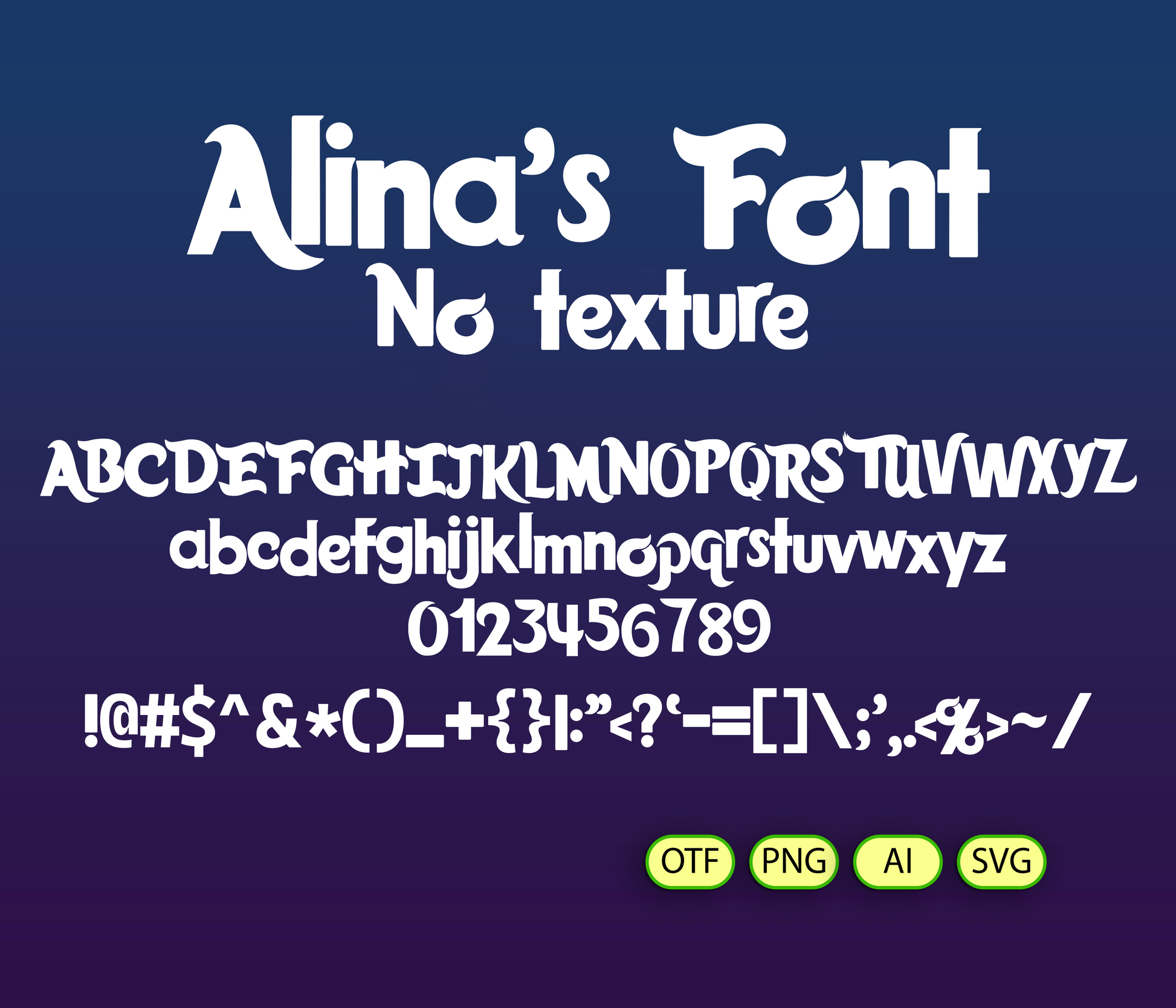
Magical Mischievous Sprites Font
Step into the vibrant and whimsical world of colorful sprites with our enchanting Magical Mischievous Sprites font! This playful typeface captures the essence of those lovable, hair-raising creatures that have captivated audiences with their musical journeys and heartwarming tales. Each character in this font radiates the joy, optimism, and wild creativity that defines these tiny, tune-loving beings.
What font is the Magical Mischievous Sprites font?
Imagine a typeface that embodies the exuberant spirit and fantastical nature of these musical sprites. Our font features bouncy, rounded letterforms with a hint of fuzziness, reminiscent of the sprites' iconic hairstyles. It includes a full set of alphabets, numbers, and special characters, making it perfect for a wide array of cheerful and uplifting design projects.
What You Can Do With Magical Mischievous Sprite Font
This versatile font is ideal for various creative applications:
1. Themed Party Invitations: Create eye-catching invites for sprite-inspired celebrations or musical events.
2. Children's Products: Design appealing merchandise like t-shirts, backpacks, and stationery items.
3. Digital Content: Enhance websites, blogs, and social media posts with a touch of sprite magic.
4. Educational Materials: Incorporate the font into fun learning resources for kids.
5. Greeting Cards: Craft personalized cards that spread joy and positivity.
6. Event Decorations: Develop colorful signage and banners for parties or conventions.
7. Book and Album Covers: Use for children's books or music-related publications. Animation and Game Design: Add a whimsical touch to digital media projects.
8. Craft Projects: Perfect for scrapbooking, DIY decorations, and artistic endeavors.
Feature Highlights and Bonuses:
• Comprehensive Character Set: Offers a wide range of characters for complete design flexibility.